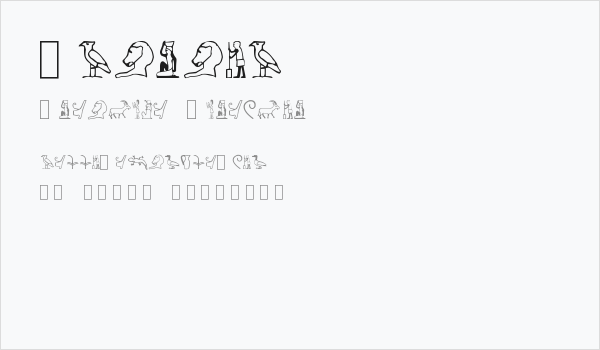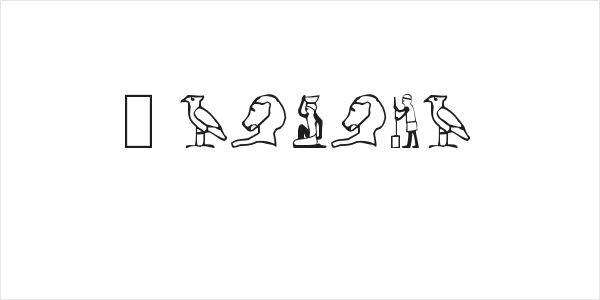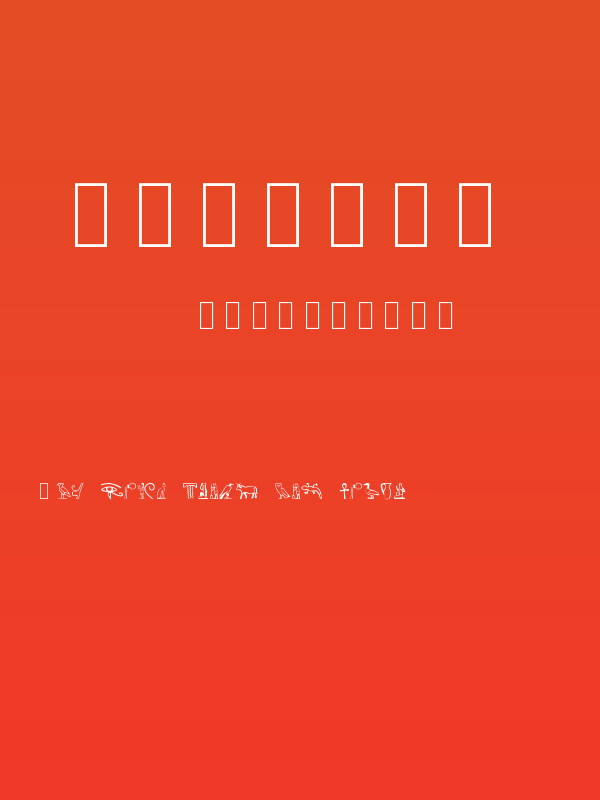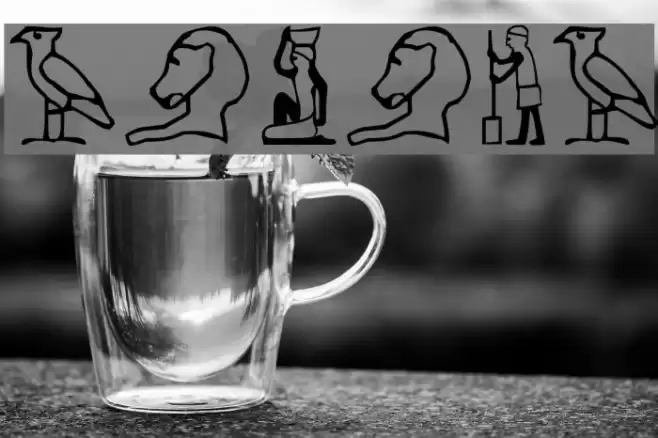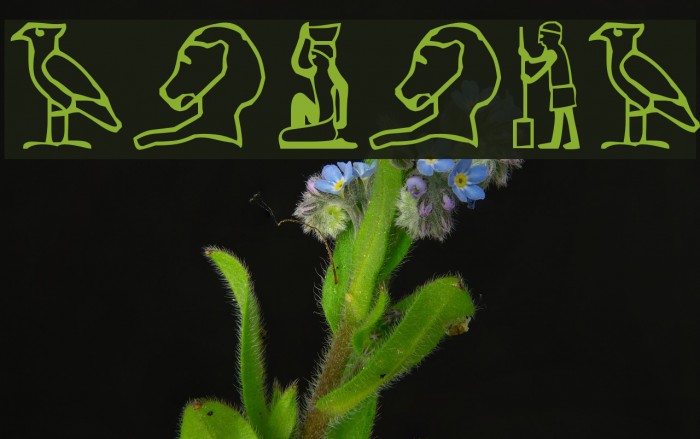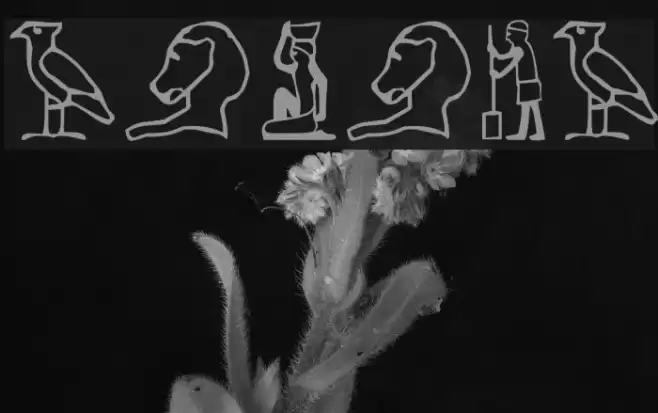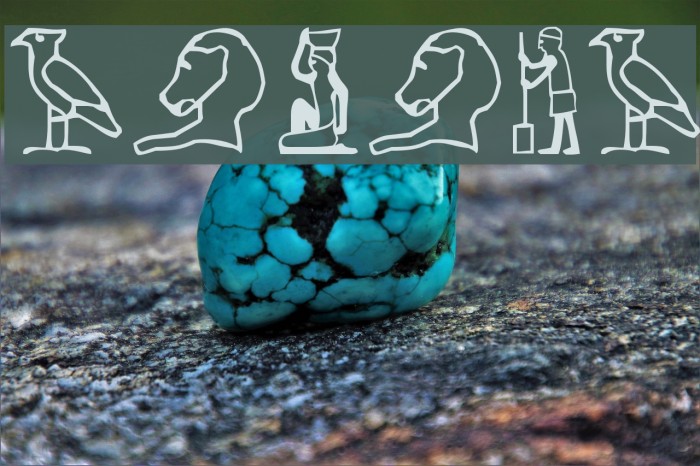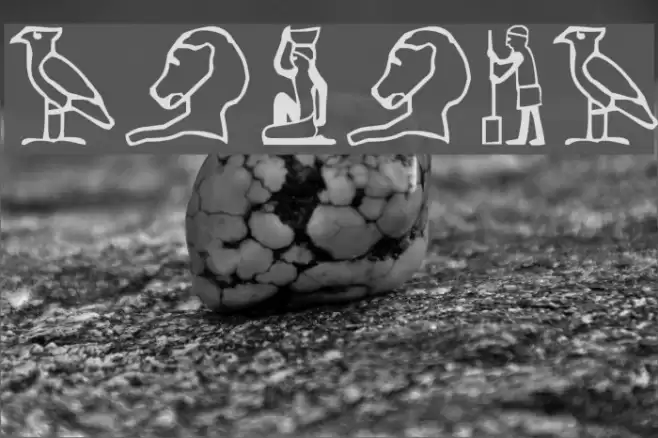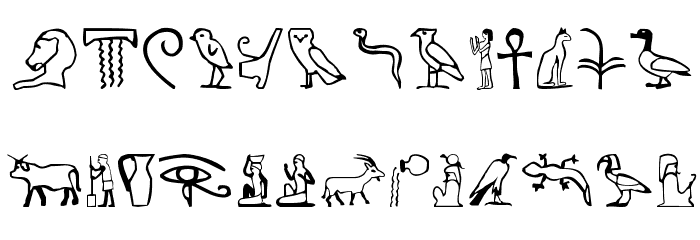
Pharaoh Font
Pharaoh Description
This font is inspired by ancient Egyptian hieroglyphs, featuring intricate and symbolic characters that resemble historical pictographs. Each character is a detailed representation of animals, objects, and symbols used in ancient Egypt, providing a unique and authentic aesthetic. The design is highly decorative, with each glyph crafted to reflect the traditional art style of hieroglyphic writing. The characters are not uniform in shape or size, adding to the historical authenticity and visual interest. This font is perfect for projects that aim to evoke a sense of antiquity and mystery, capturing the essence of ancient Egyptian culture.
| Use Case | Logos, Artistic projects, Themed events |
| Proposed Projects | Ideal for historical documentaries, museum exhibits, educational materials on ancient Egypt, themed event invitations, and artistic projects seeking a touch of antiquity. |